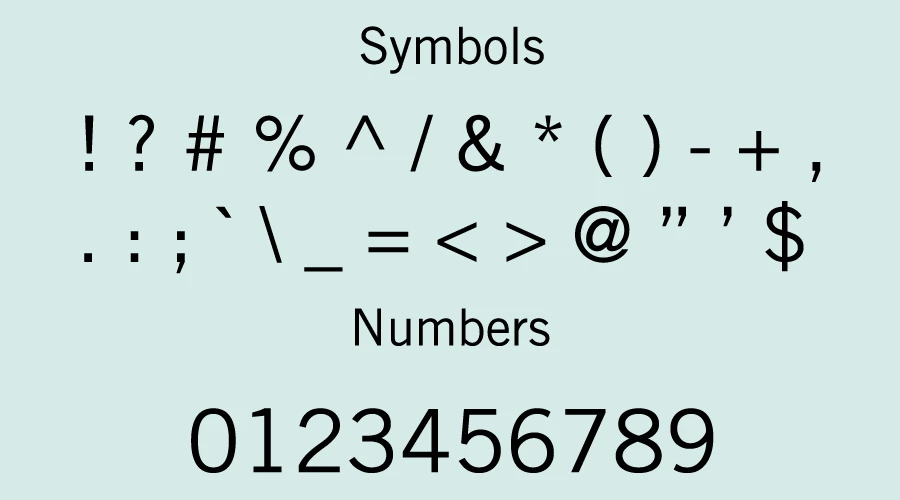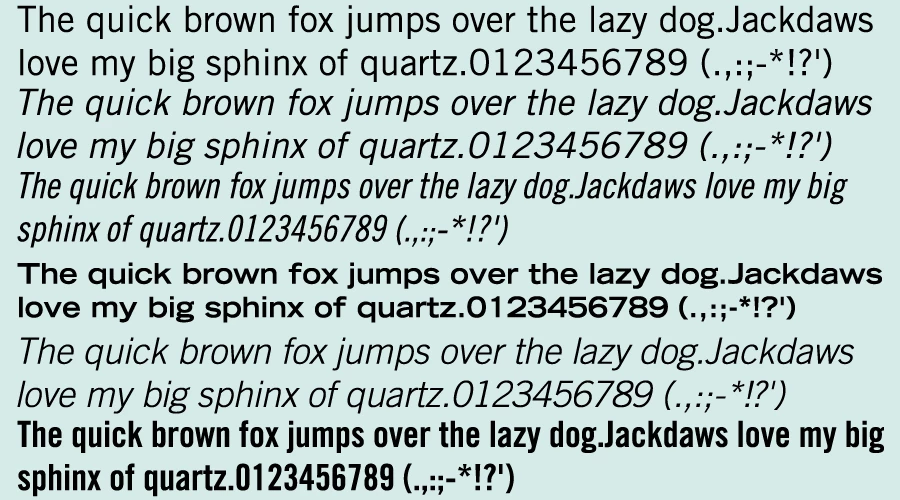
About Trade Gothic Font
Free to download Trade Gothic is a classic font that Jackson Burke designed in the mid of the 20th century. It is a Sans Serif typeface with Three weights and three widths. The designer was a director of type development for Mergenthaler-Linotype in the USA and worked on the font from 1948 to 1960 in further weights and styles. Trade gothic font style has an earthy naturalism with a non-unifying structure, unlike other Sans Serif fonts as Helvetica and Universe. The font family contains 14 styles under the weights and widths. It is a very popular font for the newspaper industry and advertising combining with roman text fonts. The irregular font style is more popular with the designers for the exceptional look.
Trade Gothic font has the face for logo designing as well as body text. Rapha Cycling wear used this font for their branding. North American graphic design chose the font as a staple from the initial release of this one. It became a worthy competitor of the famous font family Helvetica. The font also created an impression better than Quirky Grotesques that was from the end of the 19th century. The font has the structure of Regular, Bold, Black, Medium, Condensed with matching italics. Adobe font family also included this font with its creative cloud customers for free.
The usage of Trade Gothic font has gone a long way. The designer created the font to bring some options that would give the users a good variety. However, the font got its position in many sectors the designer might not think of.
Trade Gothic is very beautiful in design purposes. Graphic designers use the font in projects. On the other hand, publishers use the condensed type for headlines and for similar sections where presentation is the prime issue. It is also good for web fonts.
Also, the font has the face of the body text style. As it is a true type font that is compatible with the text as well as the heading and title.
Ans: Trade gothic is a non-unifying structured font that has the design look.
Ans: A couple of fonts are similar to Trade Gothic. Helvetica and Quirky Grotesques are the closest ones.